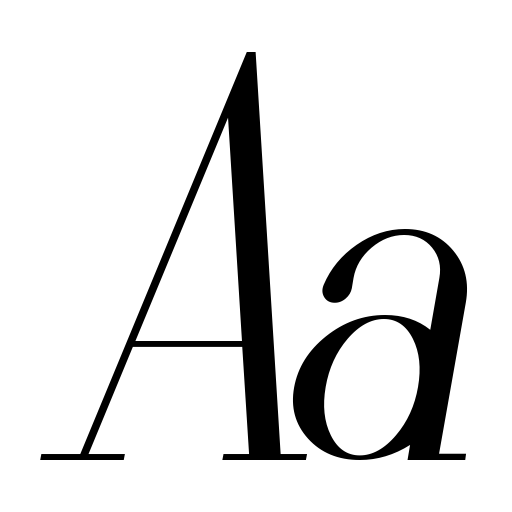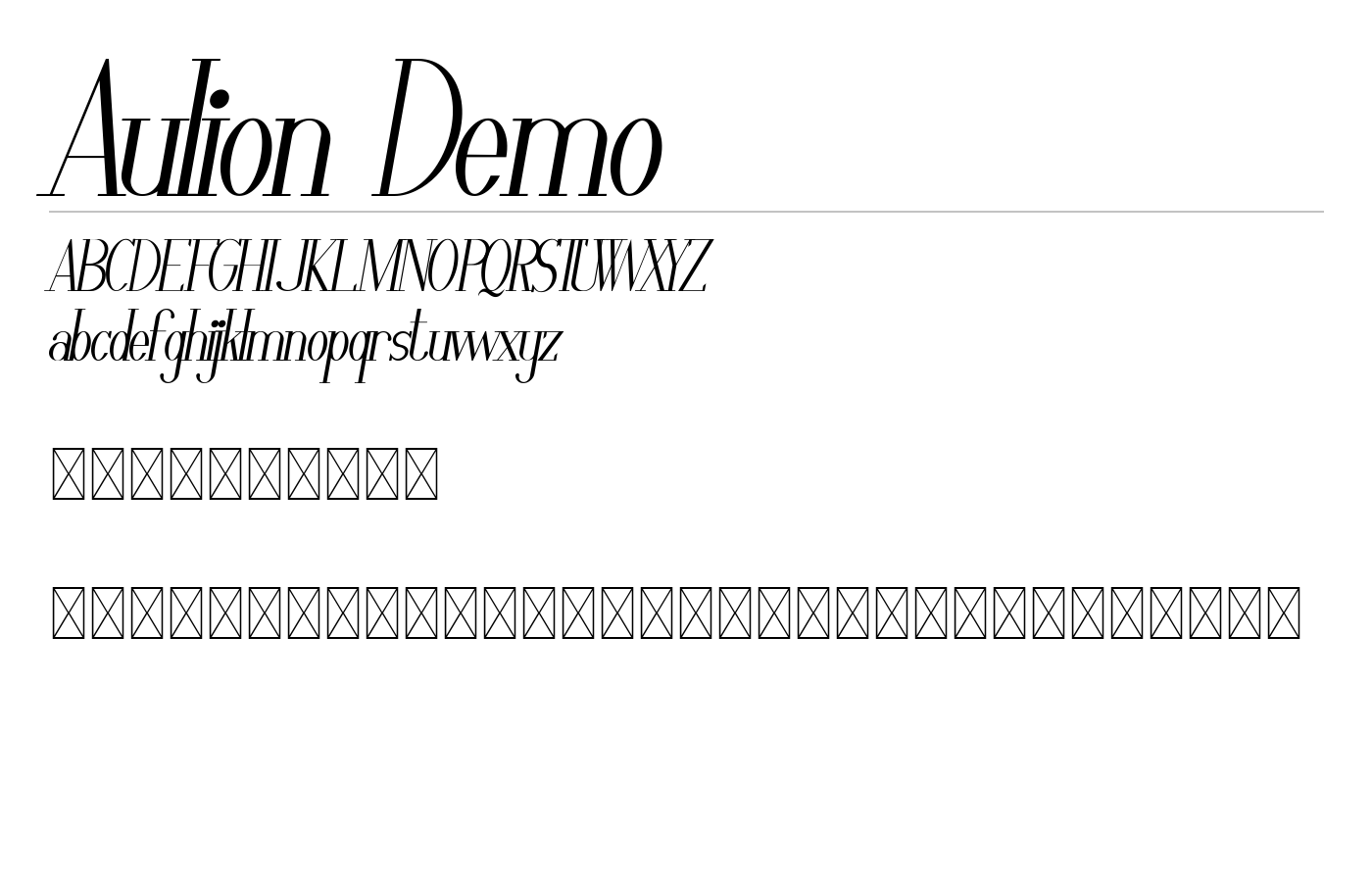
Aulion Demo is an elegant, high-contrast serif font with a slender, condensed structure that gives it a refined and sophisticated feel. Its tall, narrow letterforms and delicate serifs make it ideal for luxury branding, fashion editorials, and upscale headlines where a stylish, graceful impression is desired. This font works best in large sizes where its distinctive thin strokes and classic elegance can truly shine.
Aulion Demo Font
About Aulion Demo Font